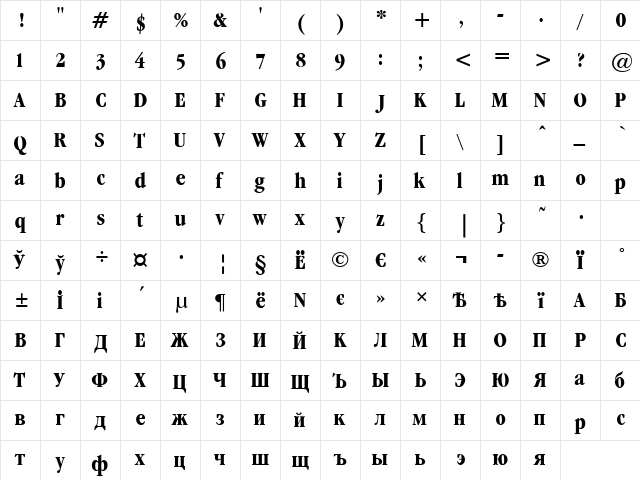
Garamond cond Bold Font Preview
Garamond cond Bold
Design Context for Garamond cond Typeface
Garamond cond offers clean, dependable letterforms without strong stylistic allegiance, making it a practical choice for designers who need flexibility. The heavy weight commands attention and anchors typographic hierarchies. Its narrow stance lets it pack a punch even in space-constrained designs.